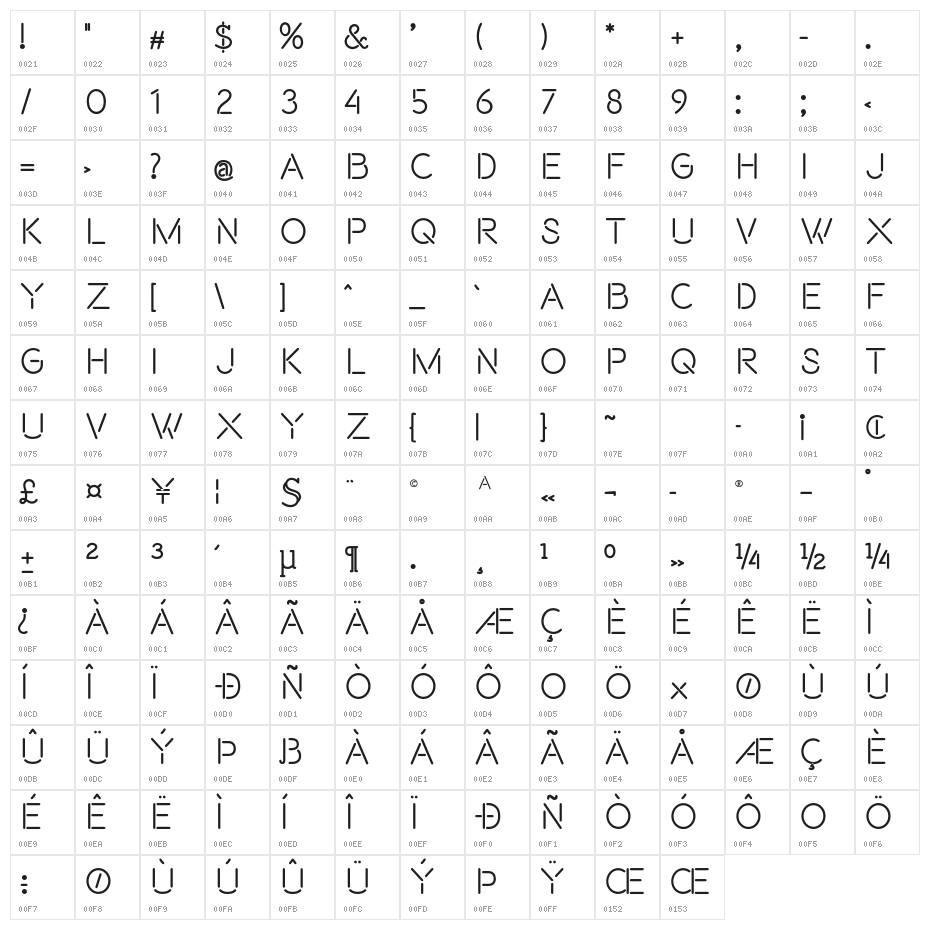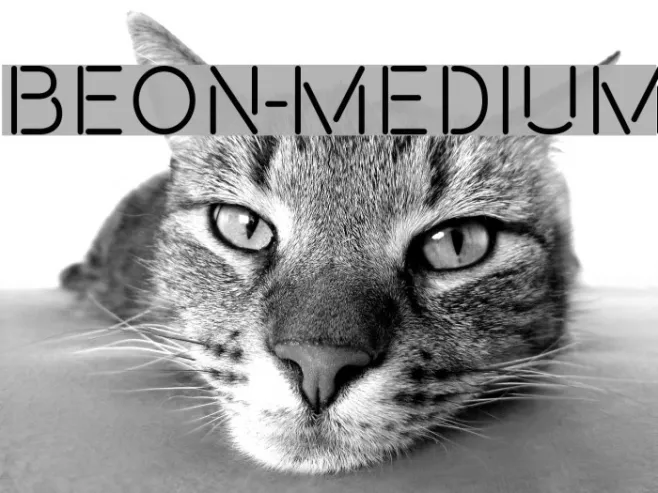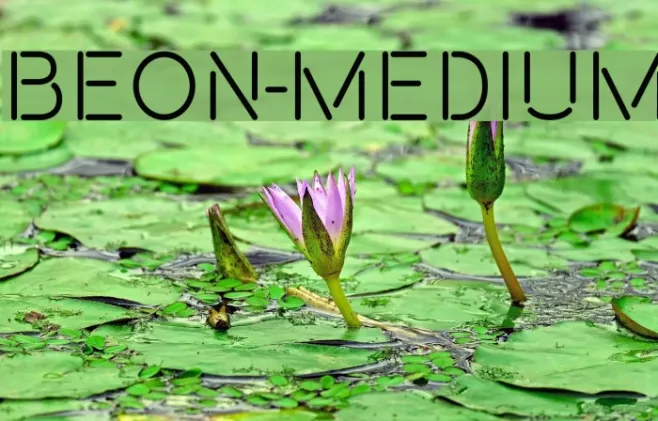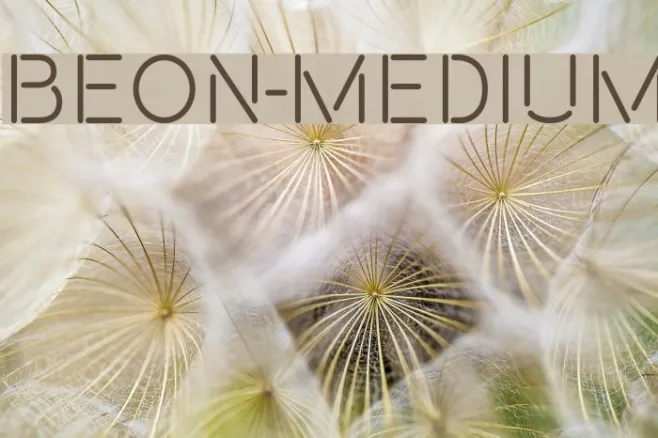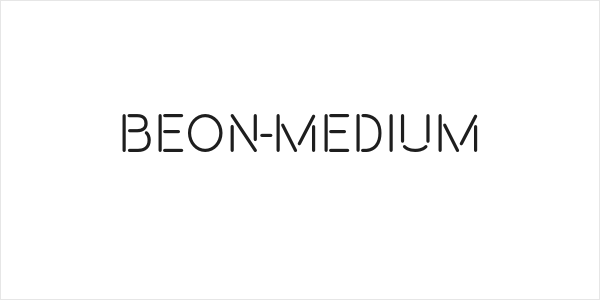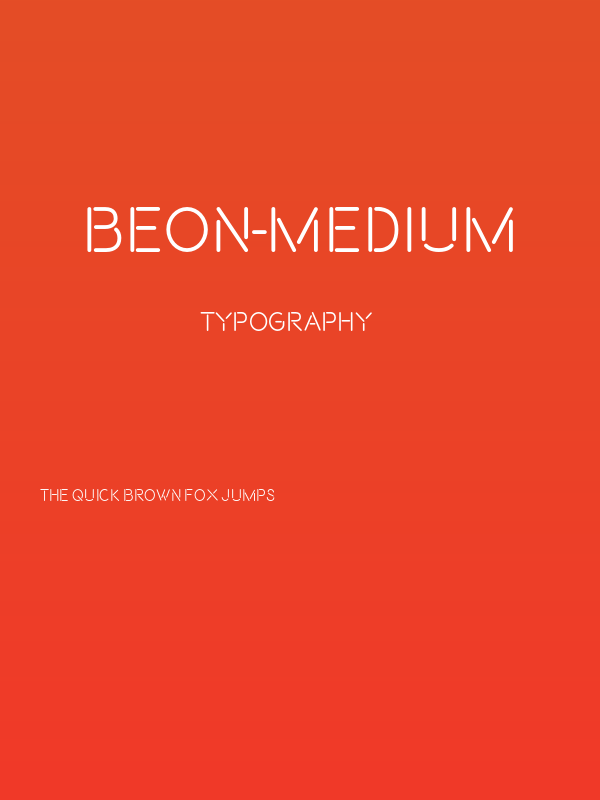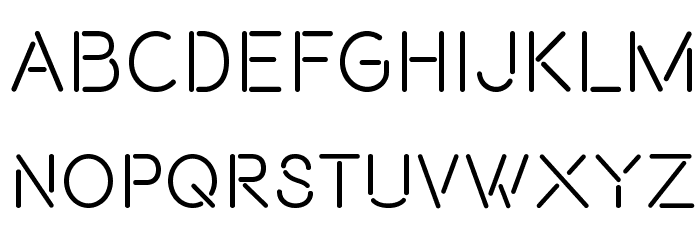
Beon-Medium Font
Beon-Medium Description
This font features a modern, geometric sans-serif design with clean lines and a minimalist aesthetic. The characters are constructed with consistent stroke widths, giving it a uniform appearance. The uppercase and lowercase letters maintain a similar structure, enhancing readability. The numerals are clear and distinct, matching the overall style of the alphabet. Special characters are well-integrated, maintaining the font's sleek and contemporary look. This font is versatile, suitable for various design applications where a modern and clean typeface is desired.
| Proposed Projects | Ideal for branding, digital interfaces, advertising, and editorial design projects. |